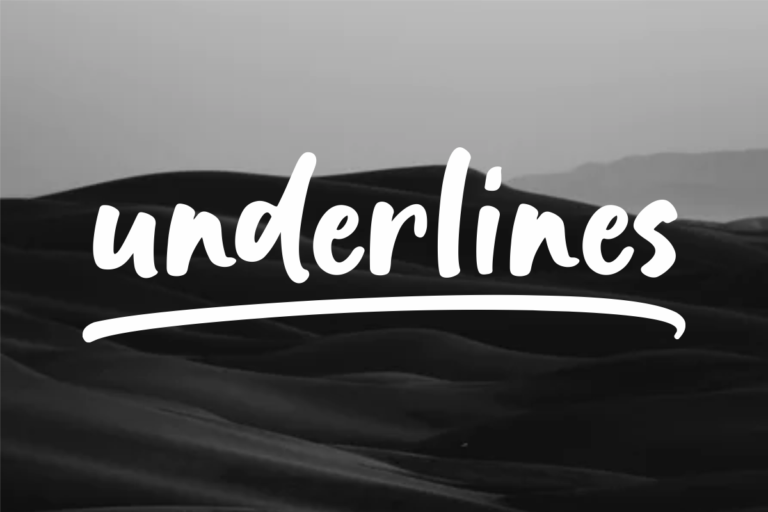
- Underlines – Handwritten Bold Script Font
Underlines
Underlines is an Elegant script font perfect for crafting, branding, invitation, stationery, wedding designs, social media posts, advertisements, product packaging, product designs, label, photography, watermark, special events, or anything.